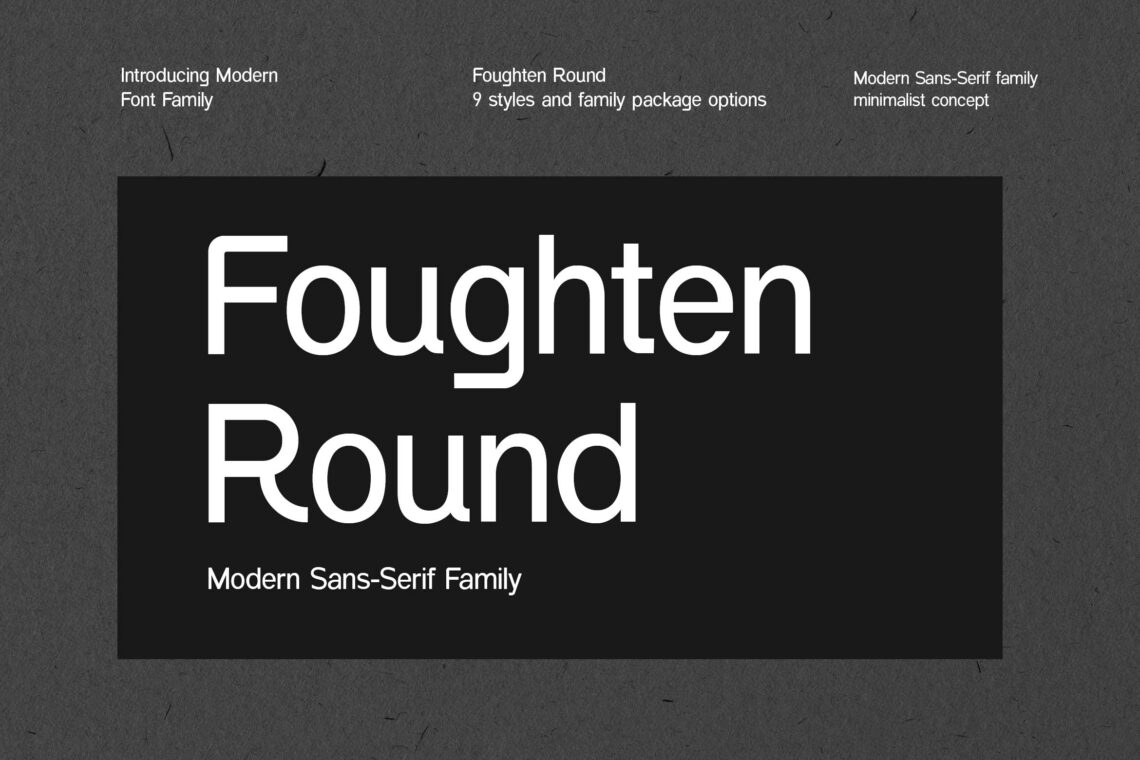
15 Best Sans Serif Family Fonts
Sans Serif fonts have been a staple in design due to their clean and modern appearance. In this article, we explore the essence of Sans Serif Family Fonts, showcase 15 exceptional options, and summarize their importance in design.
What is Sans Serif Family Fonts?
Sans Serif Family Fonts are font styles without decorative strokes at the ends of characters. These fonts are recognized for their simplicity and readability, making them popular in print and digital media. Designers often prefer Sans Serif Family Fonts for projects requiring a clean and contemporary aesthetic. They are versatile, functional, and well-suited for headlines, logos, and body text.
15 Best Sans Serif Family Fonts
When selecting a font, the right choice can elevate your design. Here are the 15 best Sans Serif Family Fonts:
1. Maxbeland Modern Sans Serif Neue Family
Maxbeland Modern Sans Serif Neue Family is a versatile font collection with sleek, minimalist designs for modern branding needs. It features clean lines and balanced letterforms, ensuring exceptional readability across digital and print mediums. Perfect for logos, headlines, and UI designs, it combines elegance with functionality. With multiple weights and styles, it offers creative flexibility for diverse projects.
2. Foughten Round Modern Sans Serif Family Font
Foughten Round Modern Sans Serif Family Font offers a soft, rounded design ideal for creating friendly, approachable visuals. Its modern aesthetic pairs clean lines with subtle curves, ensuring readability and charm in every style. Suitable for branding, packaging, or editorial design, this font family includes multiple weights to maximize creative possibilities.
3. Graybeard Modern Sans Serif Family
Graybeard Modern Sans Serif Family combines contemporary elegance with bold simplicity, making it ideal for impactful visual designs. With clean lines and balanced proportions, it exudes professionalism and sophistication. This versatile font family offers multiple weights, perfect for branding, headlines, and digital media.
4. Grandiore Modern Sans Serif Font
Grandiore Modern Sans Serif Font radiates luxury and elegance with its refined, clean letterforms. Perfect for premium branding, editorial design, and minimalistic layouts, it offers exceptional readability and style. Its modern aesthetic and versatile weights make it a standout choice for sophisticated projects.
5. Homegrown Modern Elegant Sans Serif Font
Homegrown Modern Elegant Sans Serif Font exudes timeless sophistication with its sleek, graceful design. Perfect for upscale branding, editorial layouts, and minimalist projects, it combines modern simplicity with a touch of warmth. Multiple weights provide versatility for striking headlines or subtle text details.
6. Seraphinem Modern Elegant Sans Serif Font
Seraphinem Modern Elegant Sans Serif Font embodies refined sophistication with its sleek, stylish letterforms. Ideal for high-end branding, editorial design, and luxury projects, it balances minimalism with an artistic touch. Offering multiple weights, it ensures versatility for captivating headlines and elegant text layouts.
7. Goodlines Modern Sans Serif Family
Goodlines Modern Sans Serif Family delivers a clean, contemporary aesthetic with precise, balanced letterforms. Ideal for branding, web design, and print, it combines readability with modern sophistication. Featuring multiple weights and styles, it provides versatility for dynamic and professional design projects.
8. Traceways Modern Sans Family
Traceways Modern Sans Family offers a sleek, minimalist design with clean, geometric letterforms. Perfect for branding, editorial layouts, and web design, it combines clarity with modern sophistication. With multiple weights and styles, it delivers versatility for both bold headlines and refined text elements.
9. Lakesides Neue Sans Serif Family
Lakesides Neue Sans Serif Family features a modern, refined design with clean lines and balanced proportions. Perfect for branding, editorial, and UI/UX design, it offers exceptional readability and style. With multiple weights and styles, this font family ensures creative flexibility for diverse projects.
10. Giltheads Neue Sans Serif Family
Giltheads Neue Sans Serif Family boasts a sleek, contemporary design with clean, geometric shapes and excellent readability. Ideal for branding, editorial work, and digital design, it balances modern aesthetics with versatile functionality. Multiple weights and styles make it perfect for a wide range of creative projects.